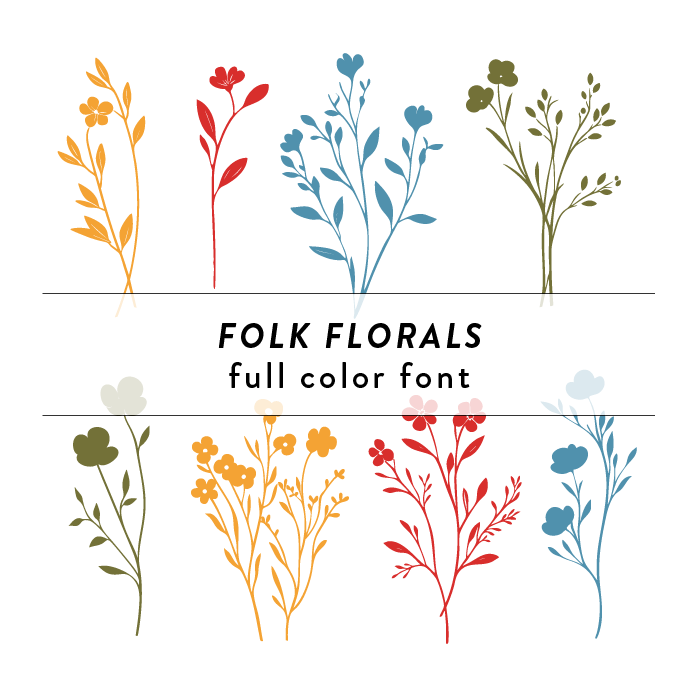
Folk Florals Full Color Font is a whimsical and vibrant font design featuring intricate flower patterns. This unique font is perfect for adding a touch of summer and craft-inspired charm to any project. Its key features include detailed floral elements, bold colors, and a playful style that is sure to stand out. Ideal for invitations, posters, and any design project that calls for a fun and colorful touch.This font is a OTF craft font that will appear in color only when used with the silhouette software.